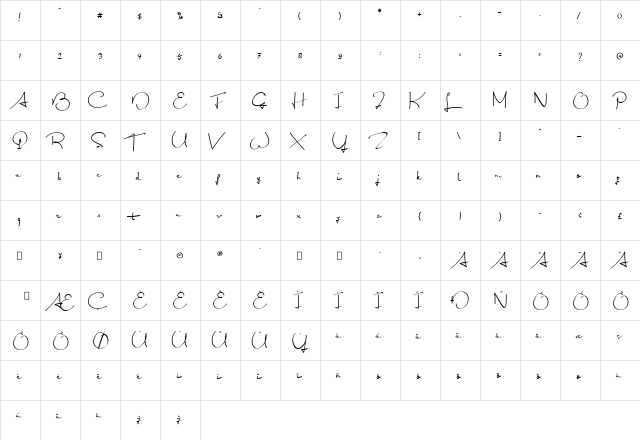
Giamatti Regular
| Foundry | Febri_Creative |
| Designer | Febrianto |
Design Context for Giamatti Typeface
Giamatti is a composed and adaptable typeface that performs quietly and consistently across a wide range of design contexts.